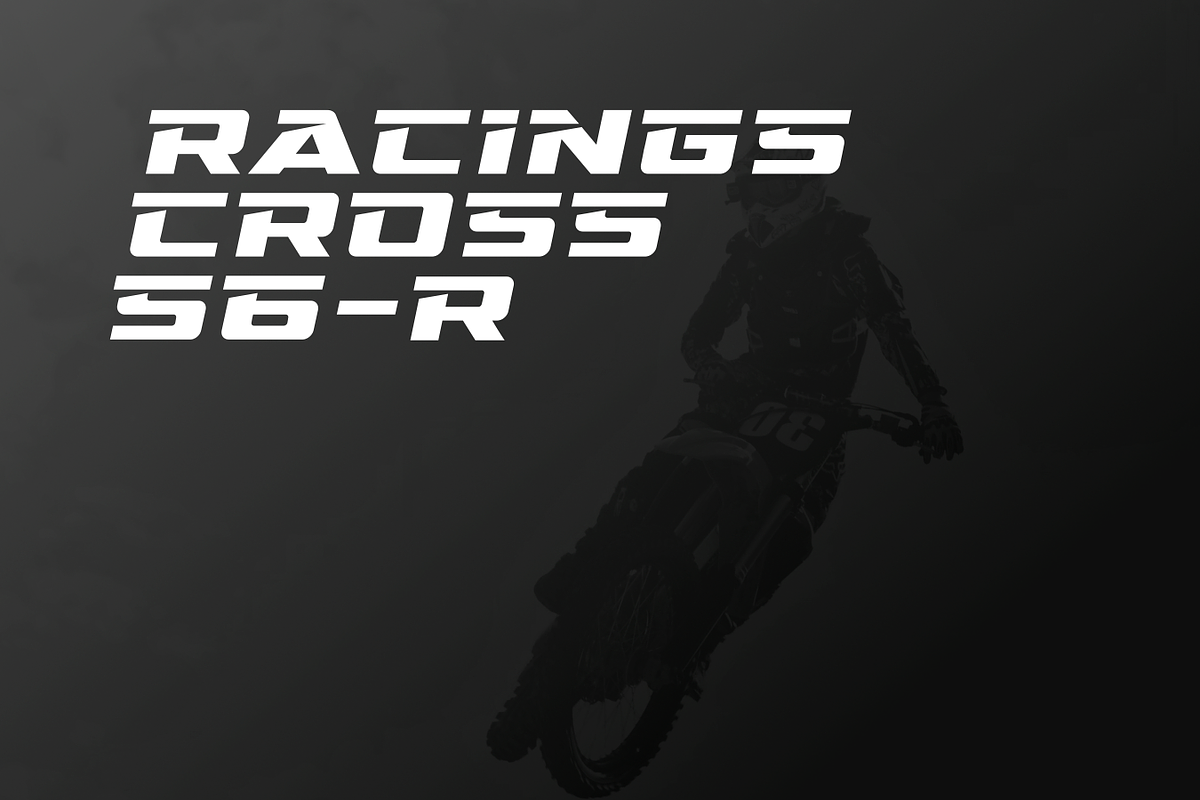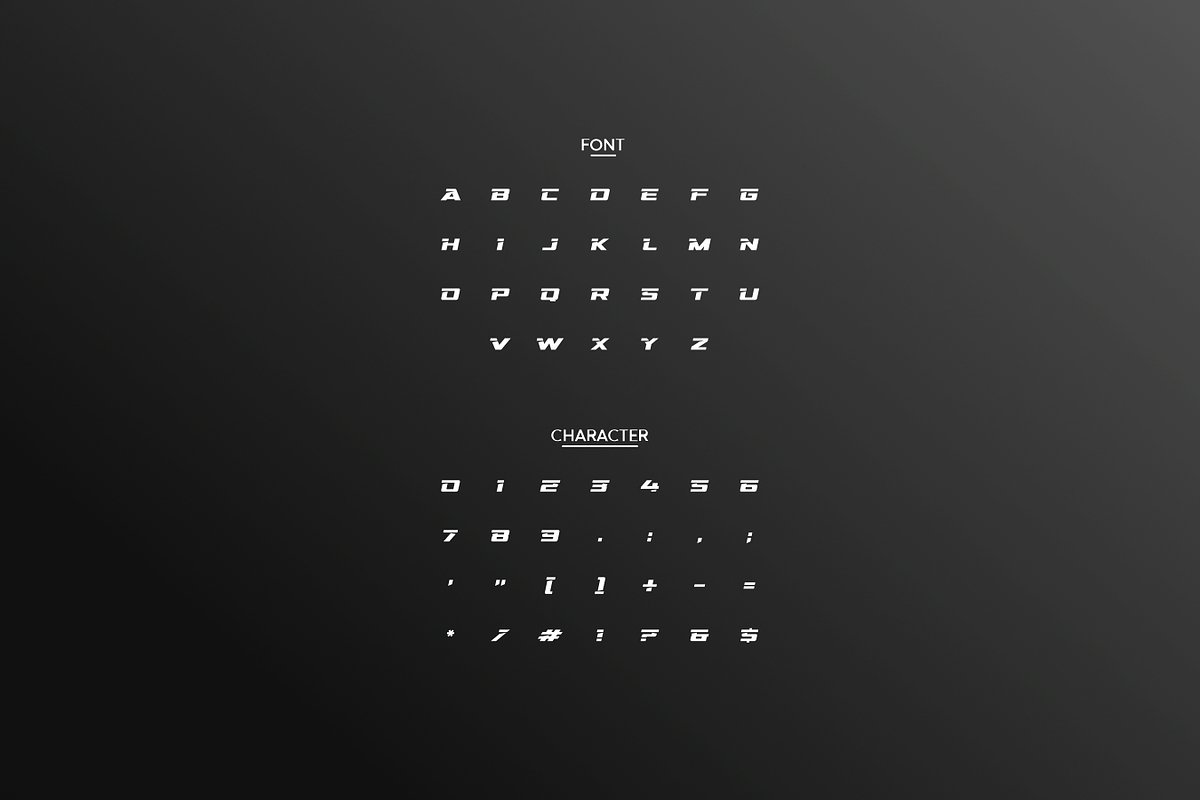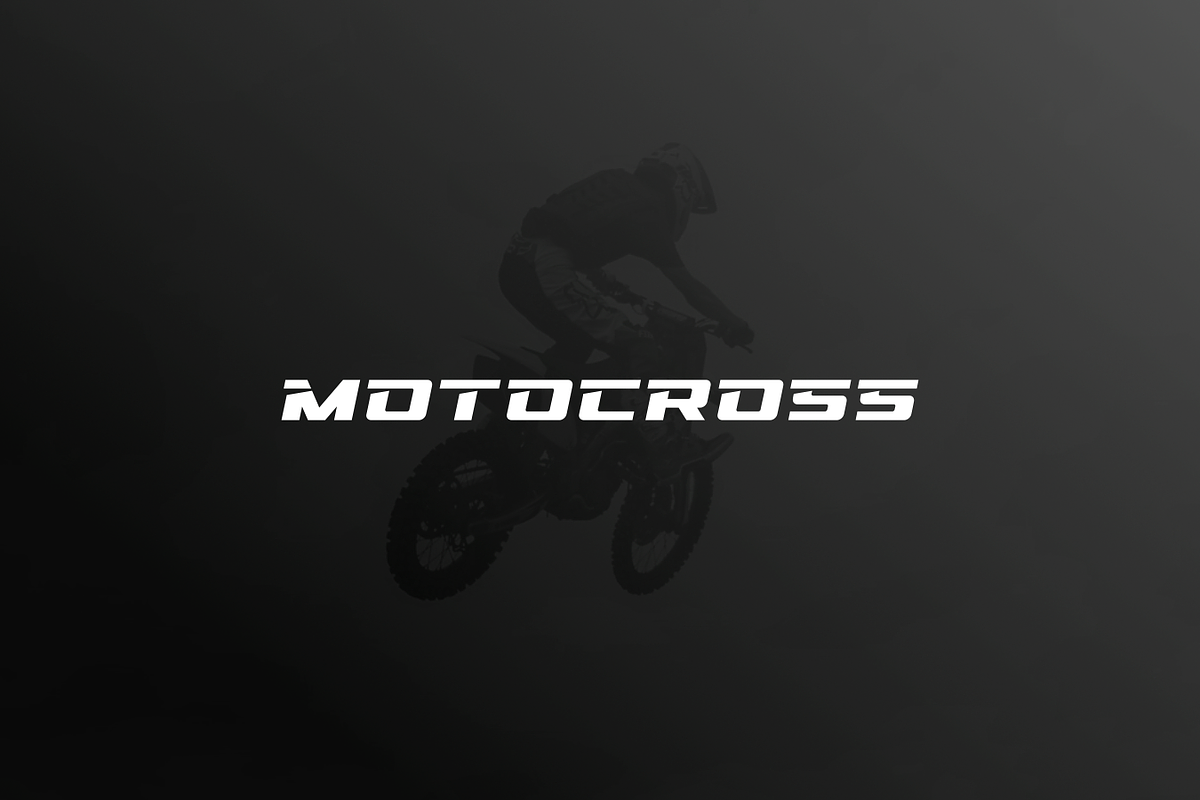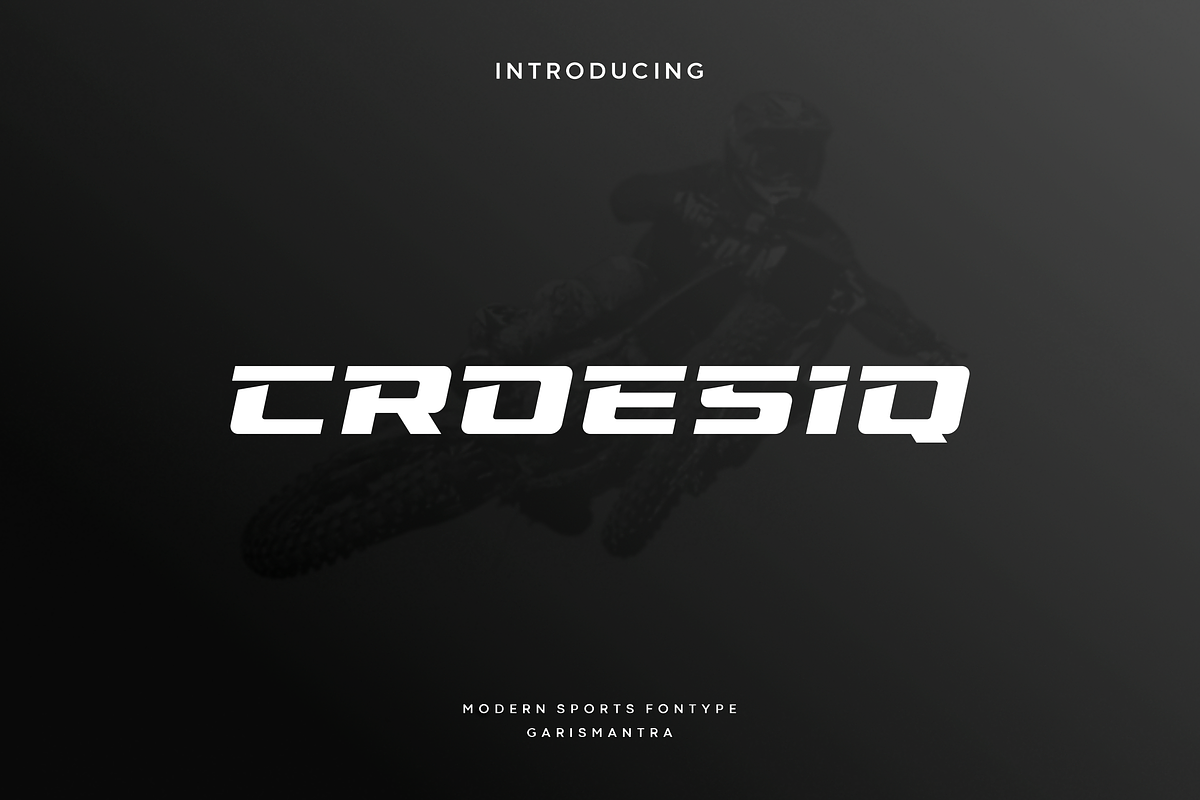
Croesiq
Croesiq is an awesome sports font, with a wide italic font style, modern cutouts on every corner giving it a dynamic slant. Ideal for fast car racing sports titles, running matches, cycling, automotive game logos and other modern dynamic monograms or texts. Croesiq compares favorably with readability and size, creating a power and speed effect. Designed as a fast and dynamic font, but with a slightly different font design, take a look and grab it right away.